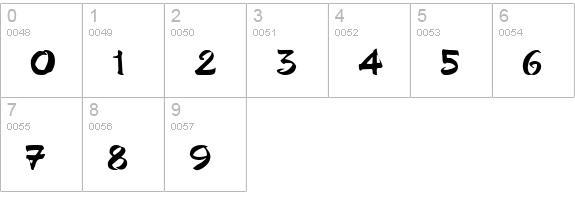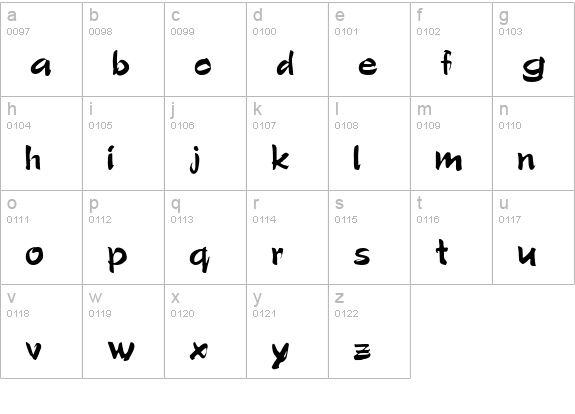
Stylo Bold Font Details
Stylo Bold is a strong, high-contrast variant in the Stylo typeface family \xE2\x80\x94 well suited to headlines, attention-grabbing titles, and strong calls-to-action.
Stylo Bold font is a stunning and versatile typeface that exudes modernity and sophistication. Its bold and striking design makes it perfect for creating eye-catching headlines, logos, and branding materials. With its clean lines and elegant curves, Stylo Bold adds a touch of style and flair to any design project. The best part? Stylo Bold font is completely free to download at FontsMarket.com. Whether you're a professional designer looking to add a new font to your collection or a hobbyist exploring different typography options, Stylo Bold is a fantastic choice that won't cost you a penny. Don't miss out on this amazing opportunity to elevate your designs with the bold and beautiful Stylo font. Download it today and start creating stunning visuals that stand out from the crowd.